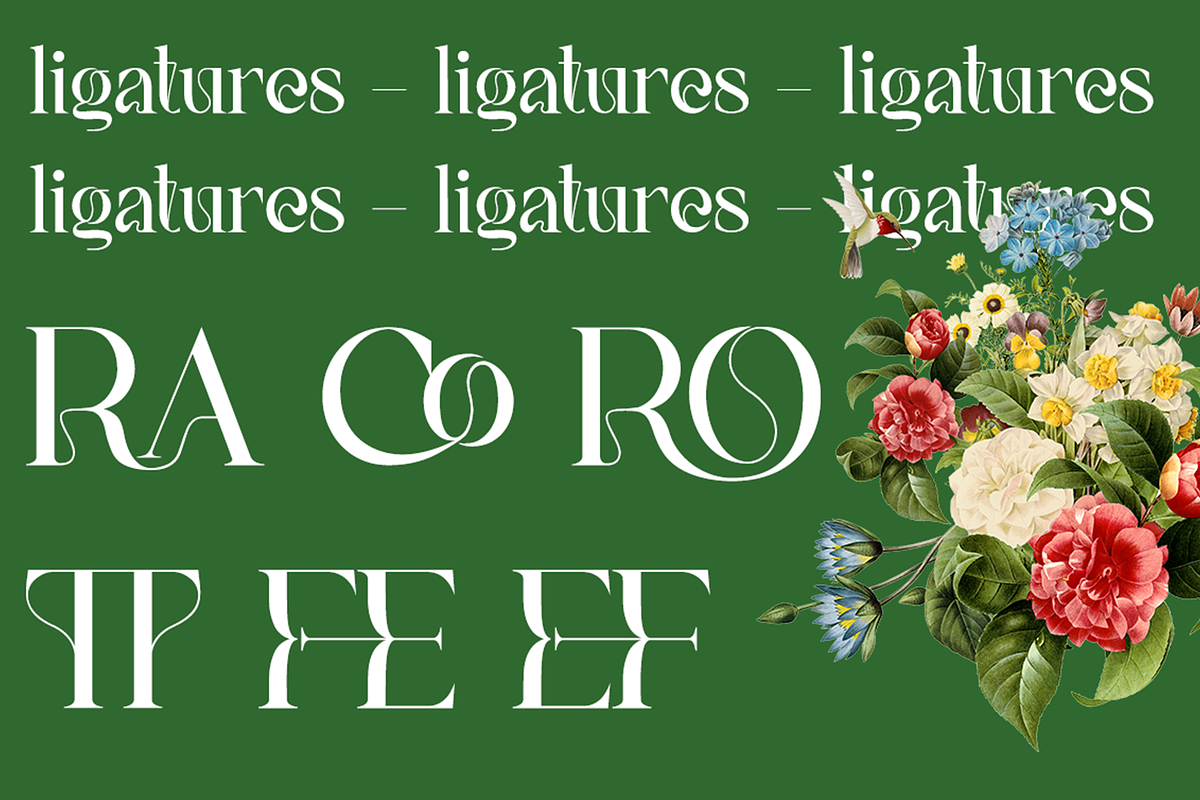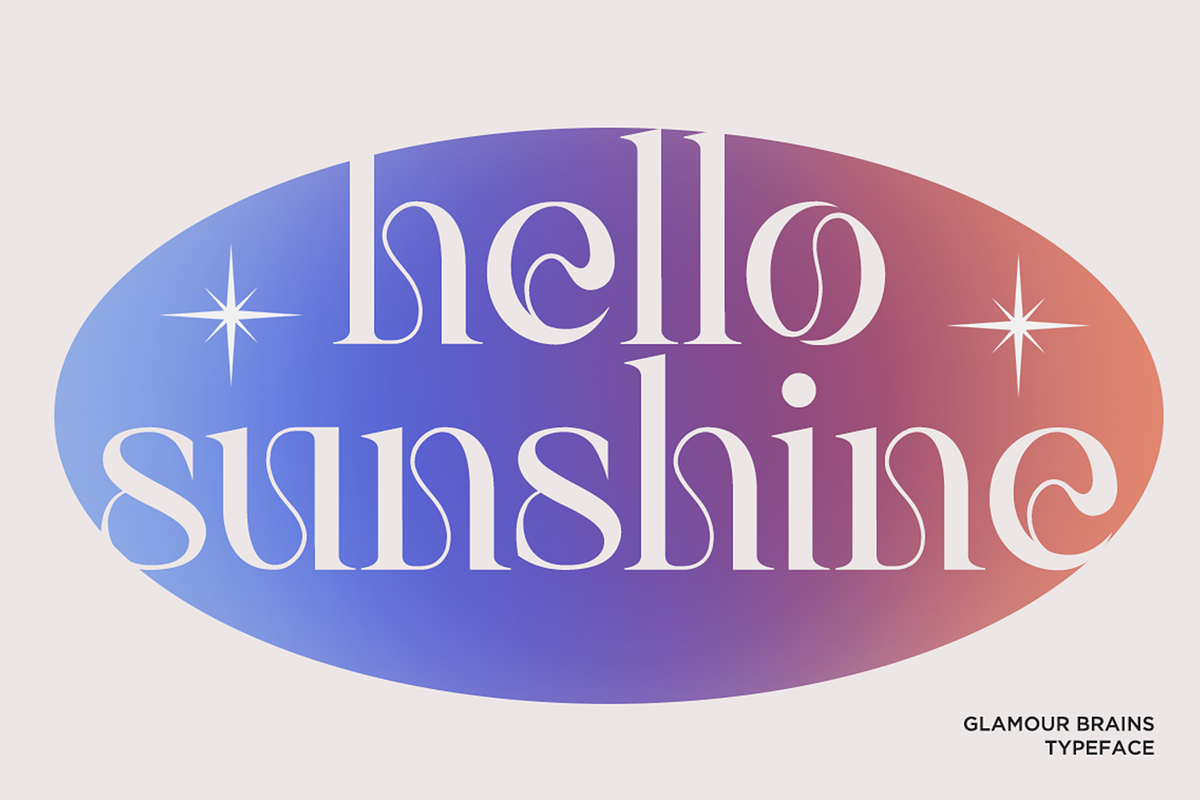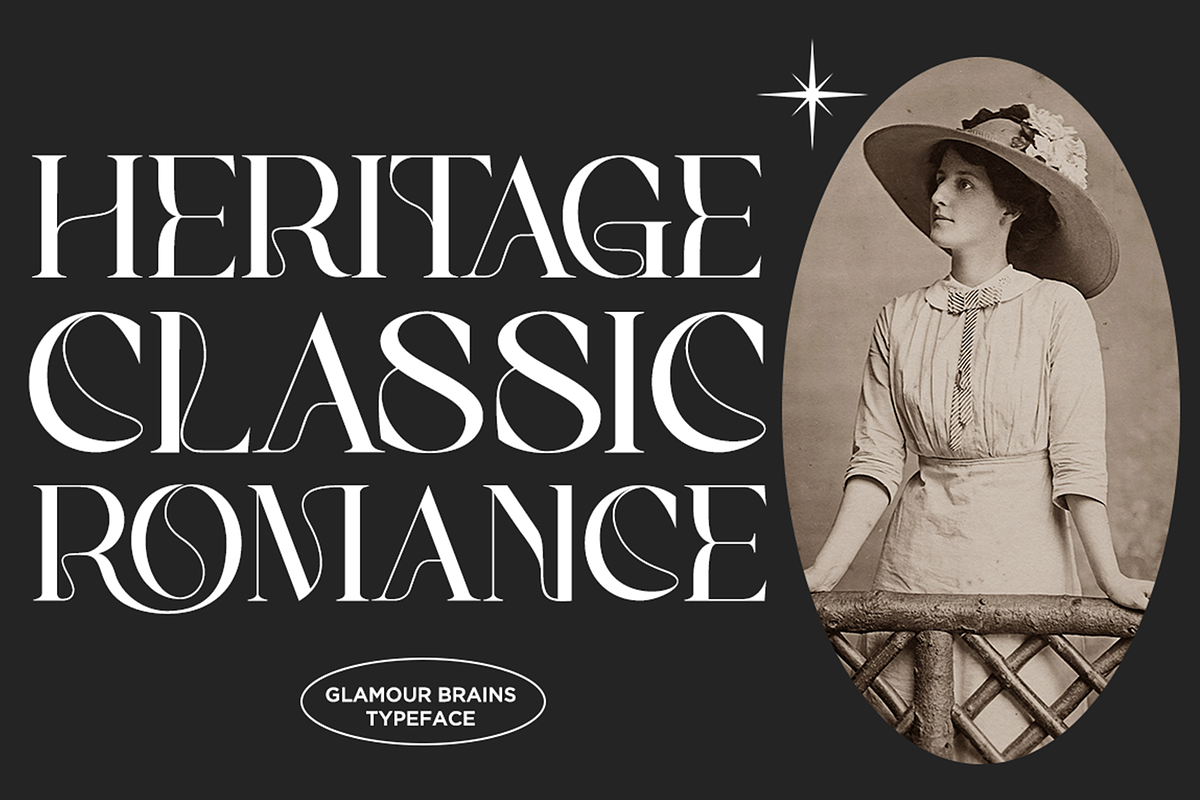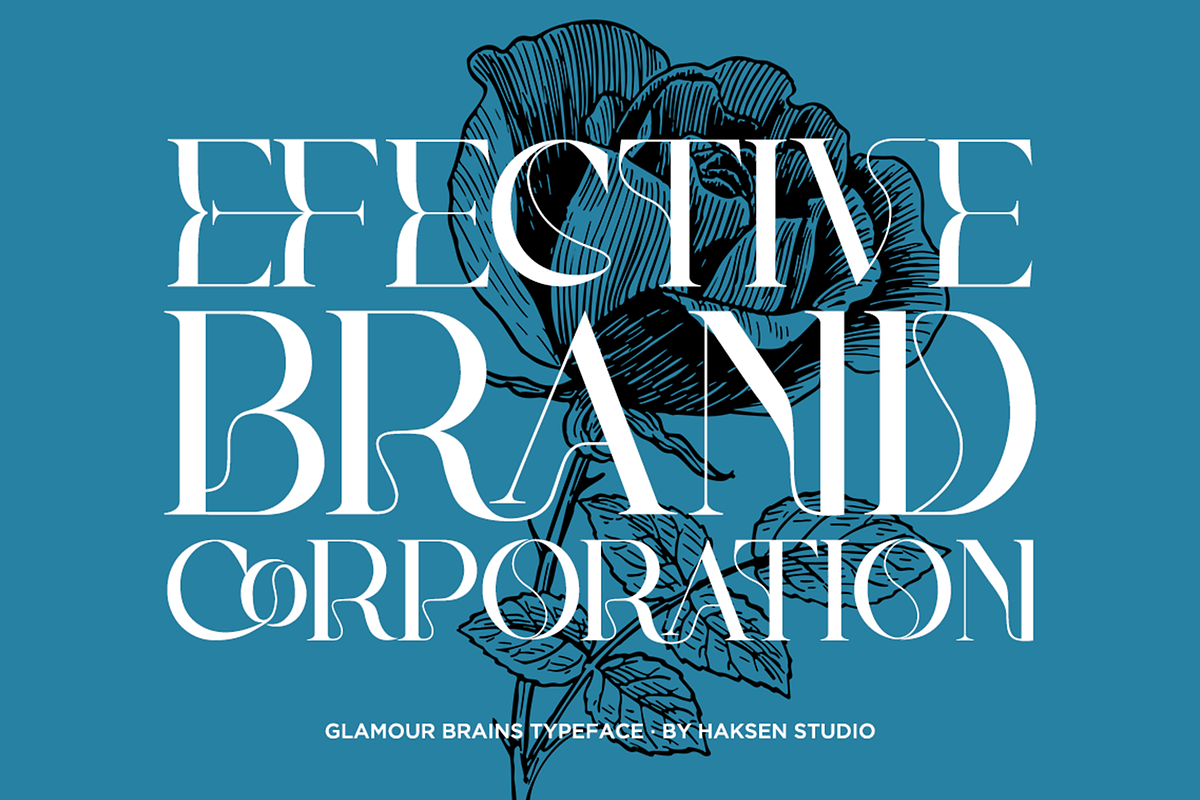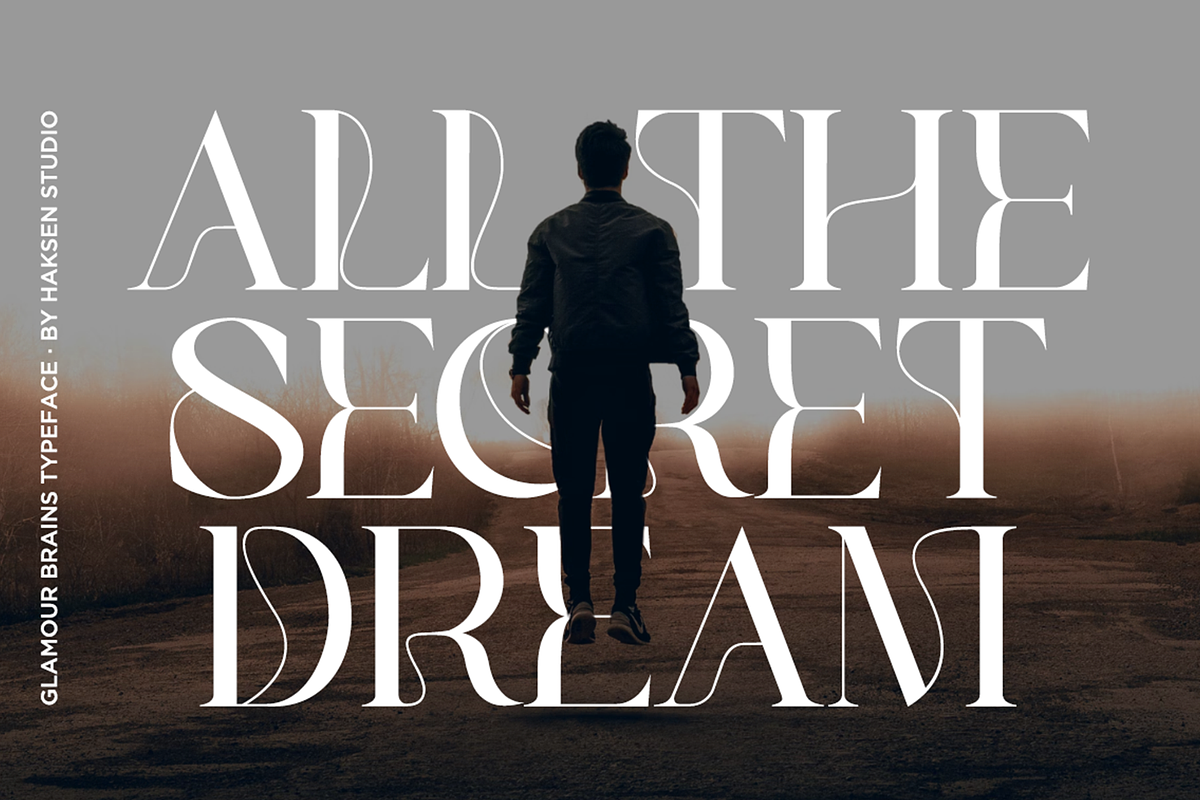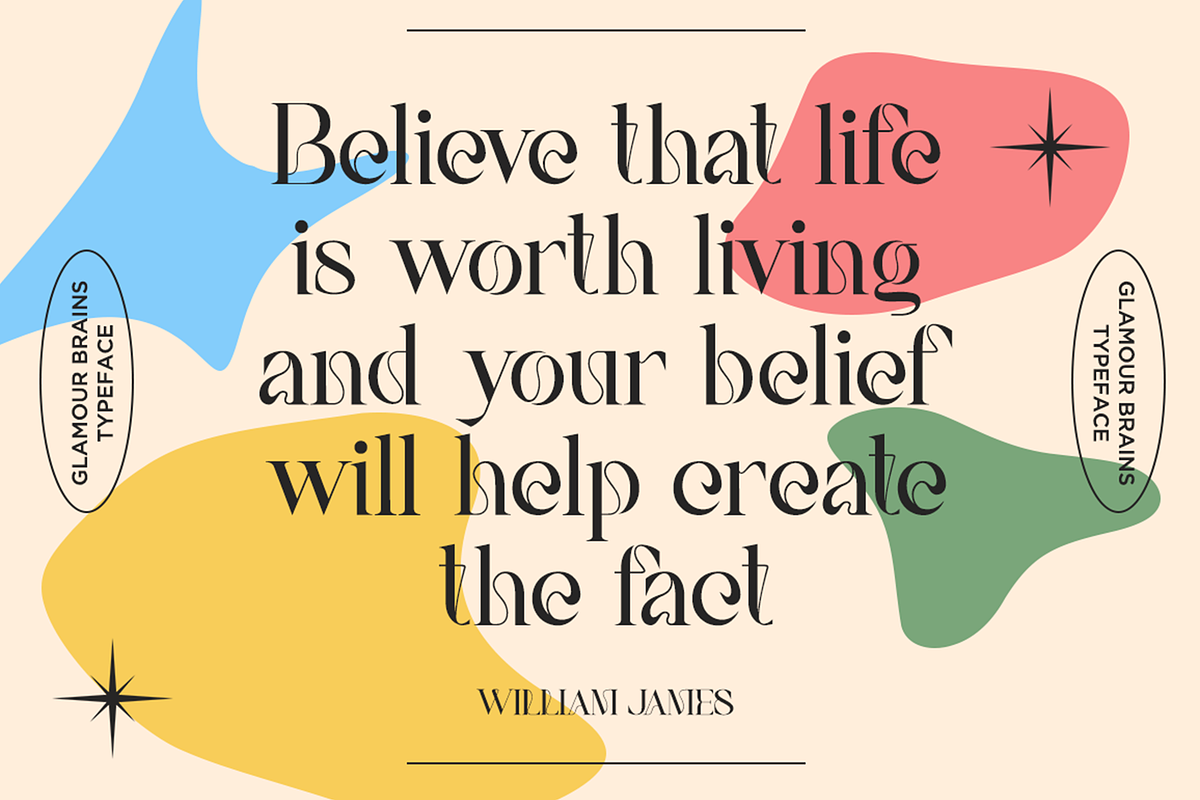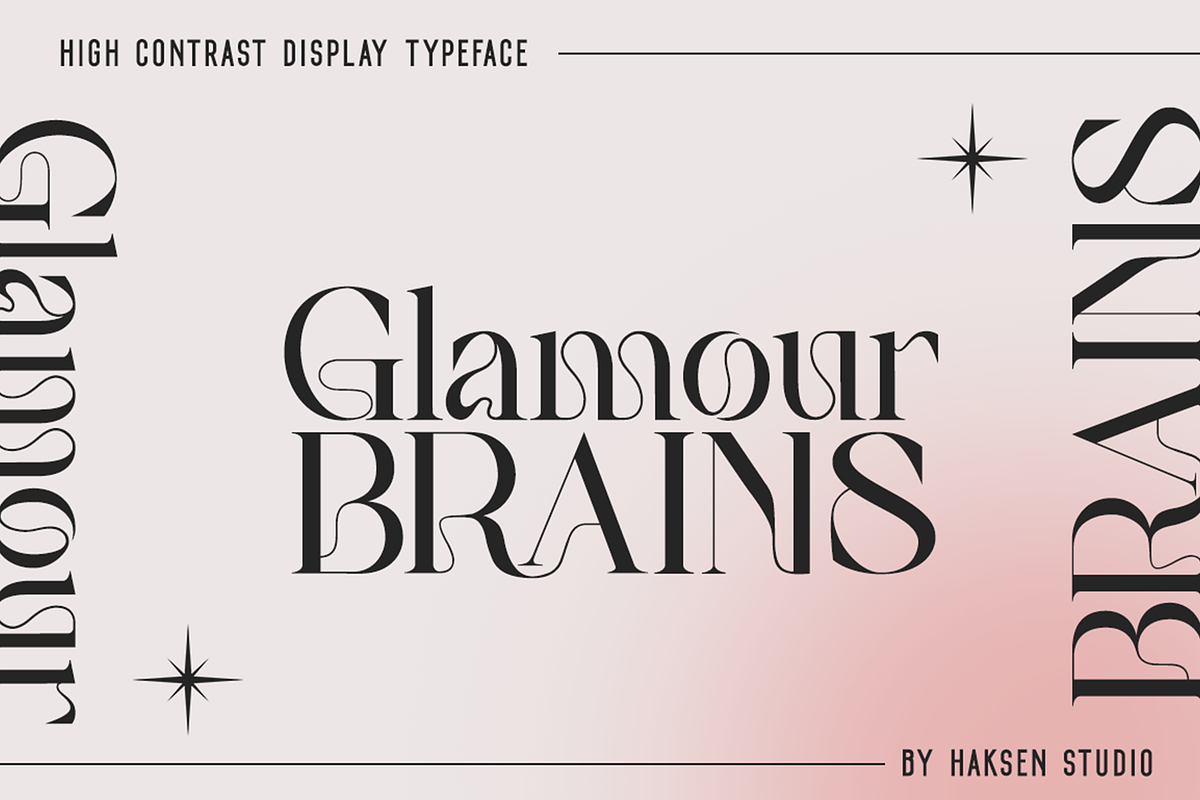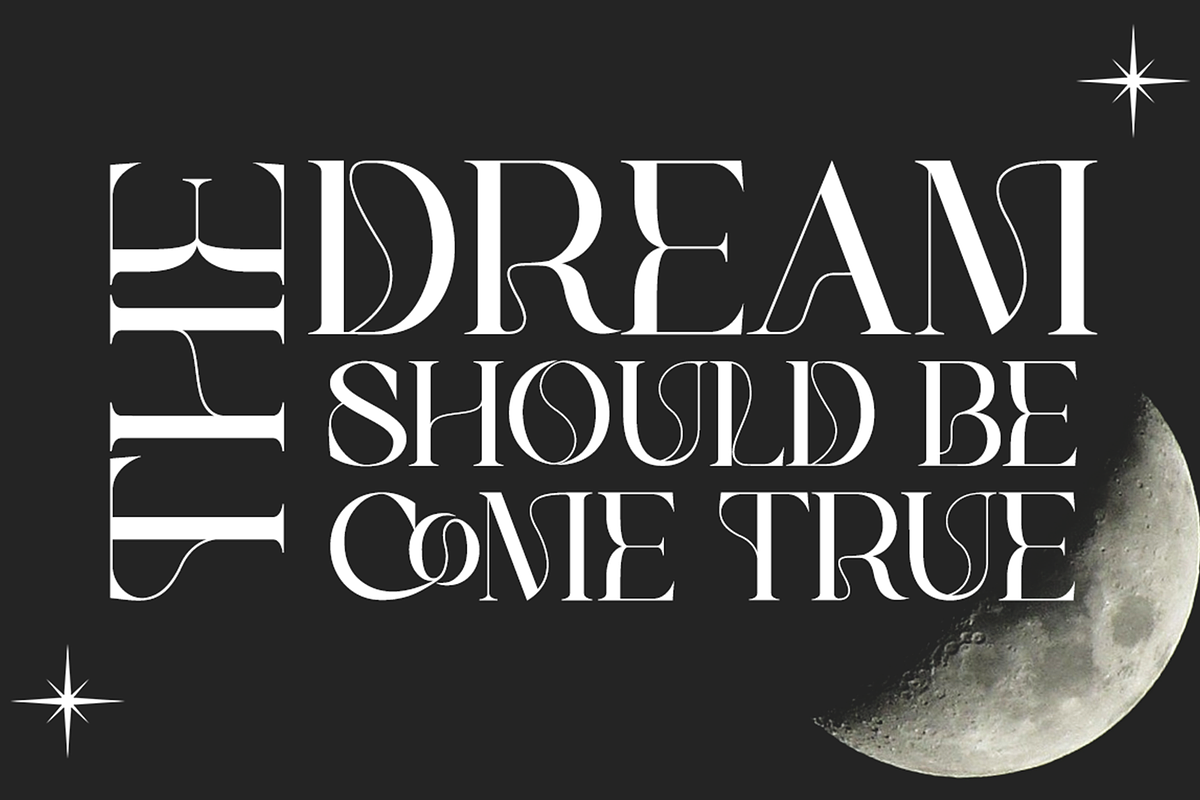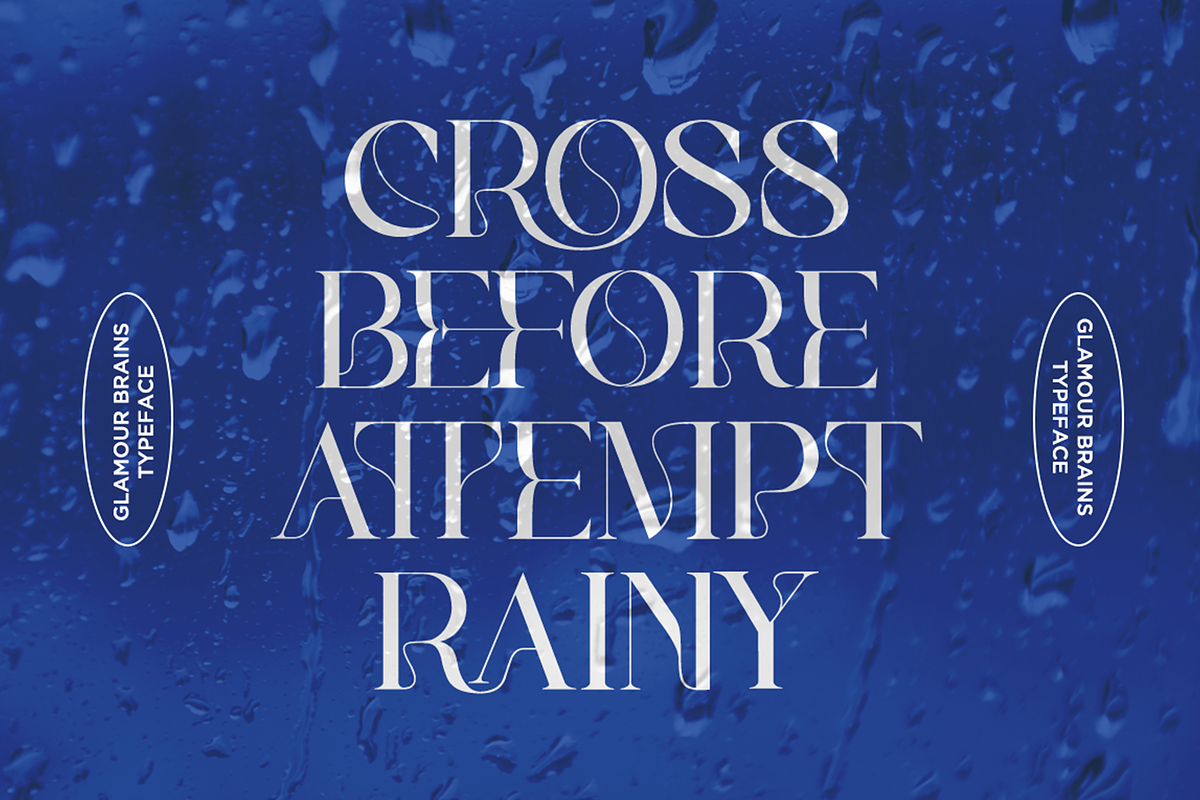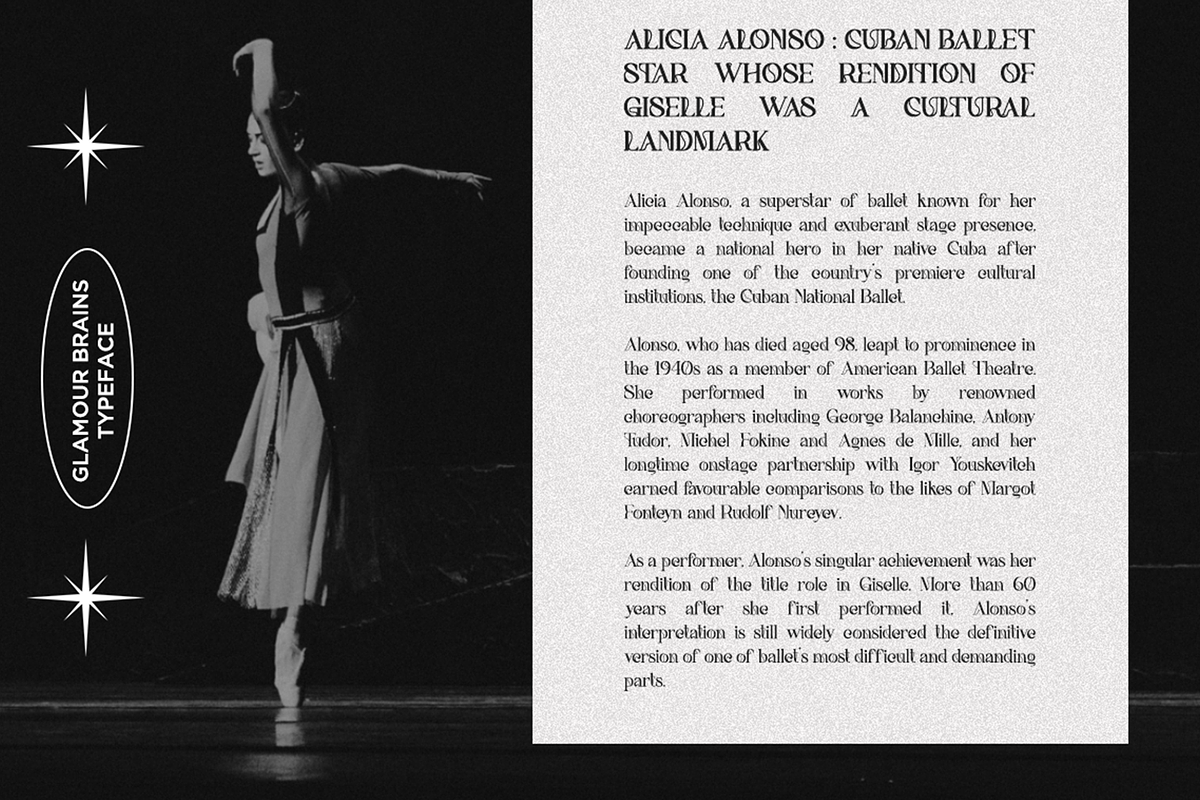
GLAMOUR BRAINS - By Haksen
Glamour Brains is a contrast serif display style with unique anatomy every letter. Provide variant ligatures make the design letter looks incredible. Honestly it works perfectly for headlines, logos, posters, packaging and much more.
- Character set A-Z in uppercase and lowercase
- Ligatures in Uppercase
- Accented Characters
- Multiple Languages Supported